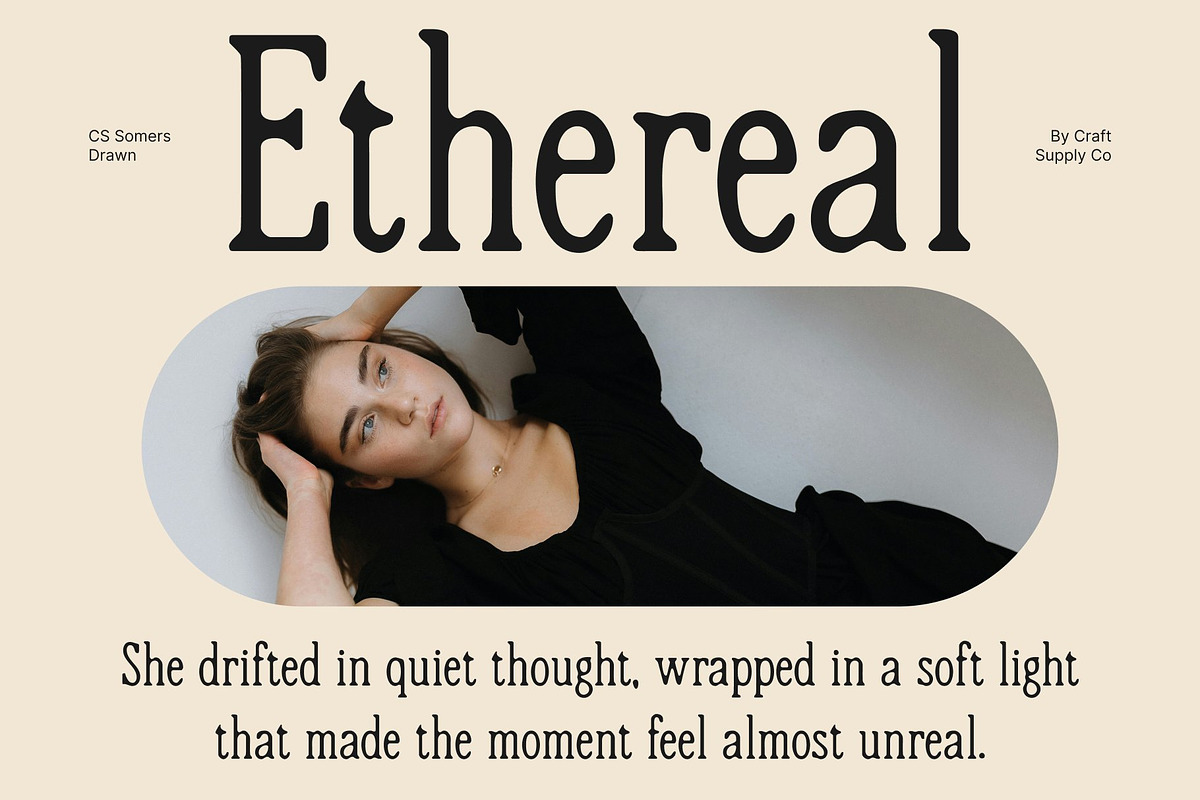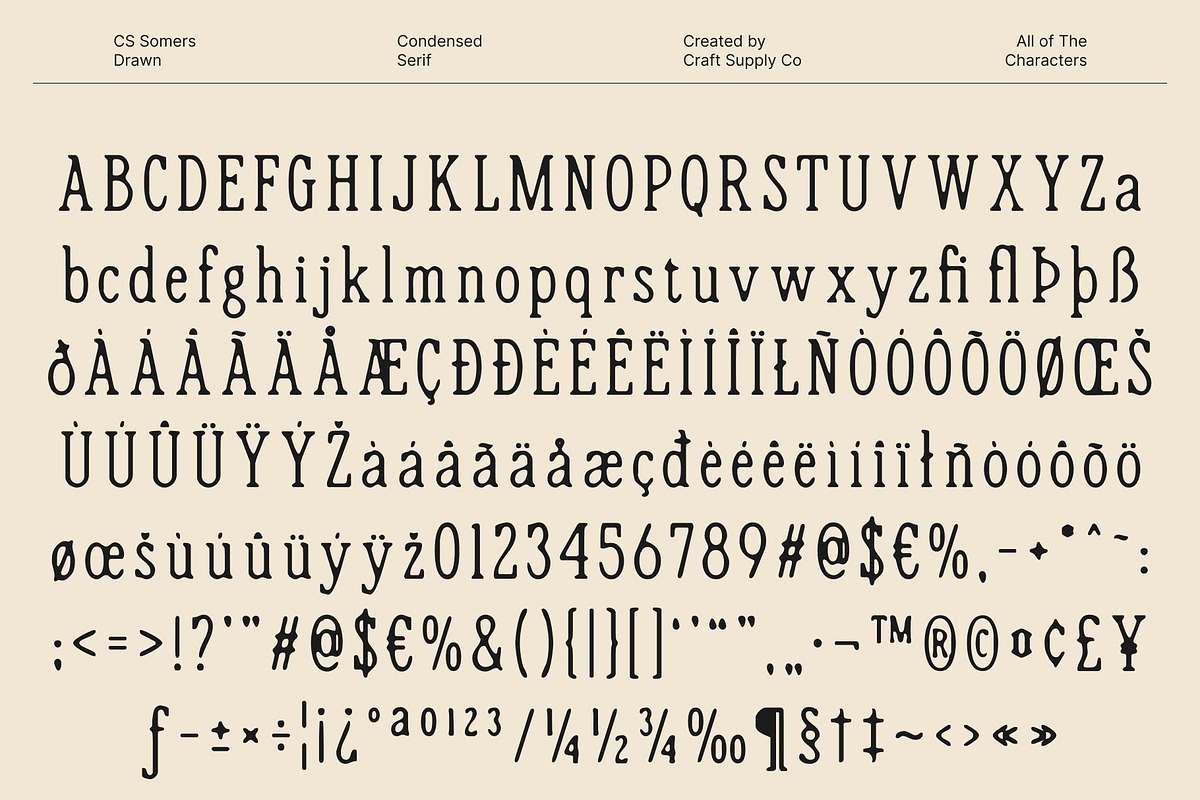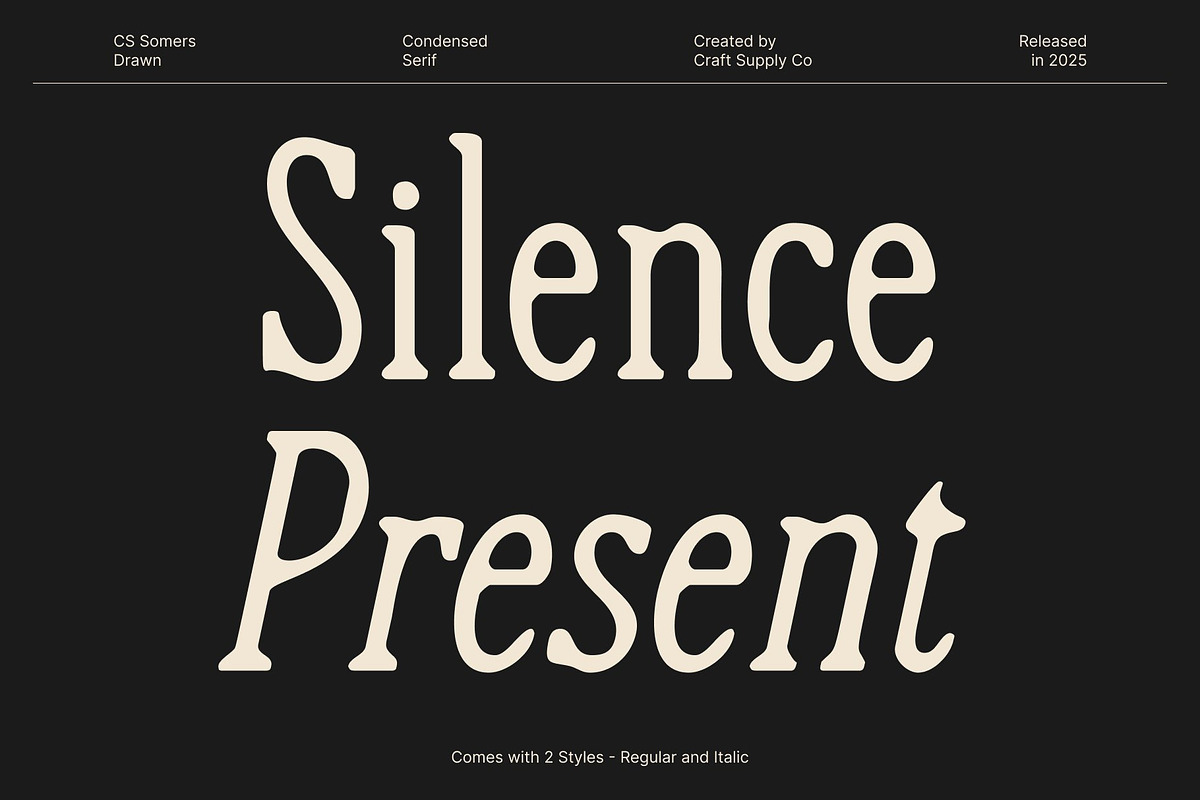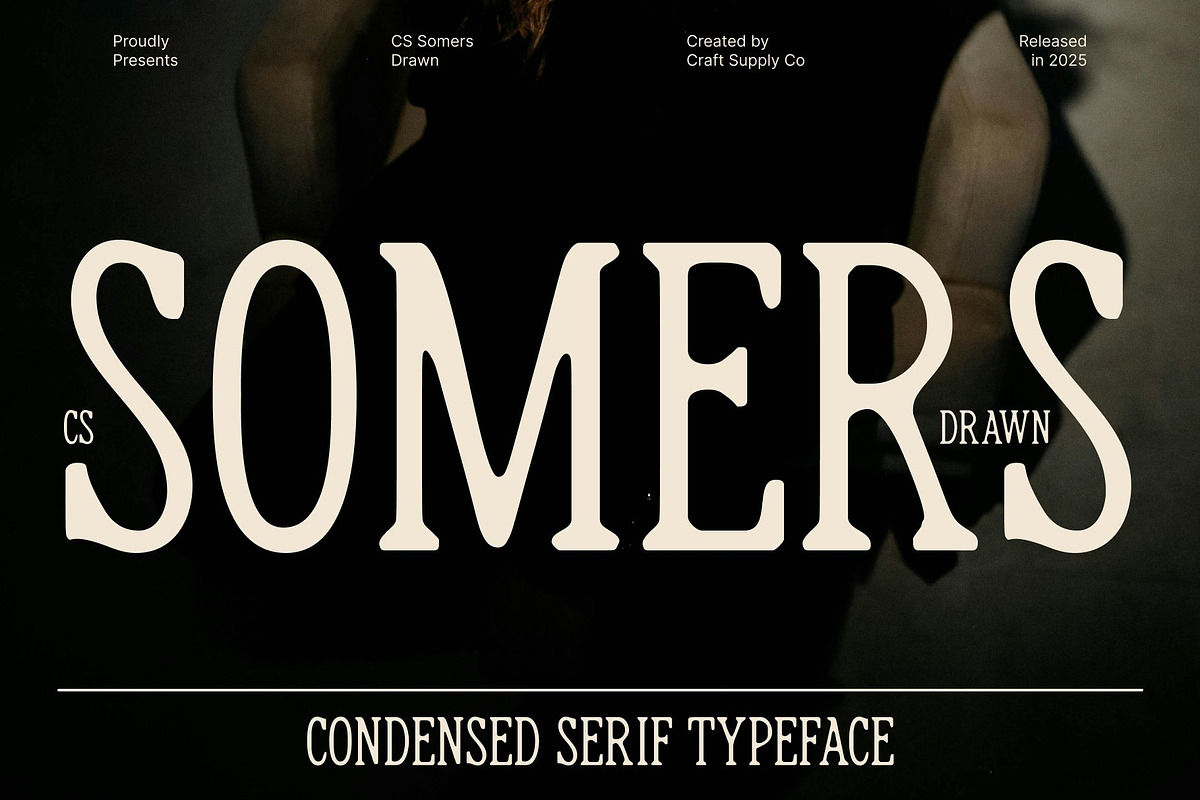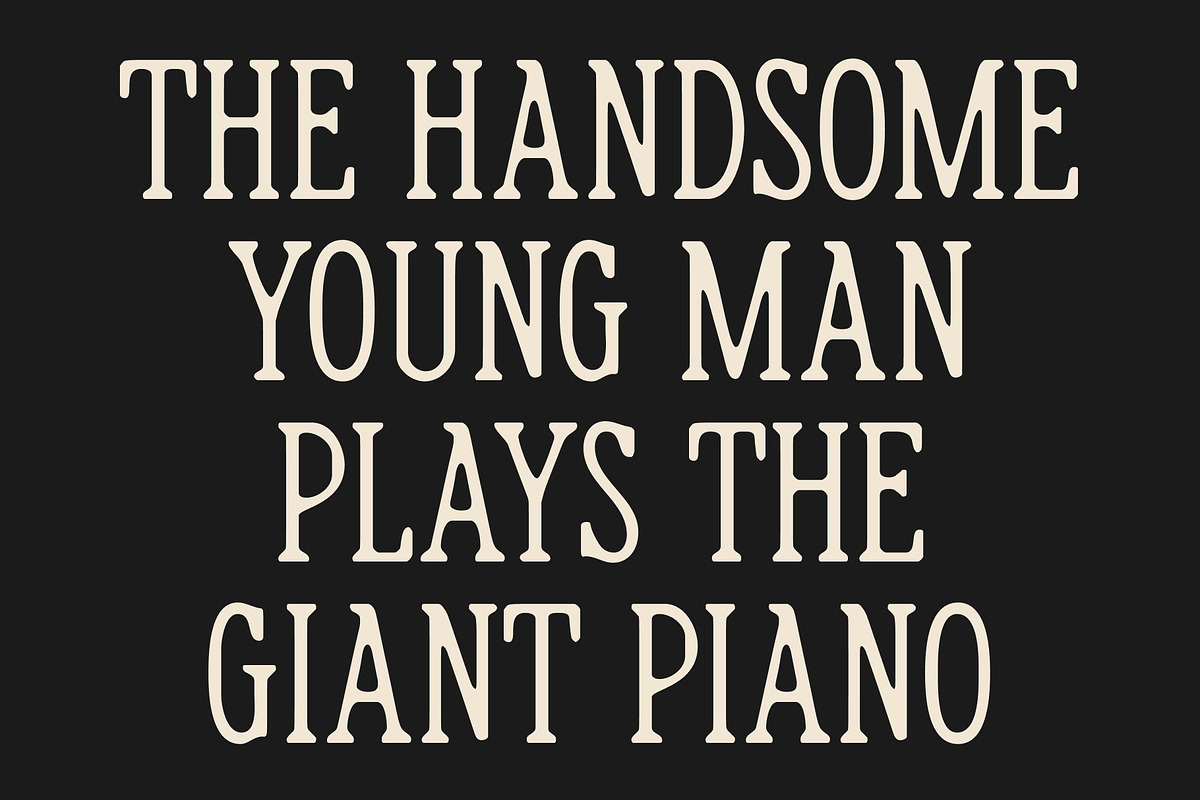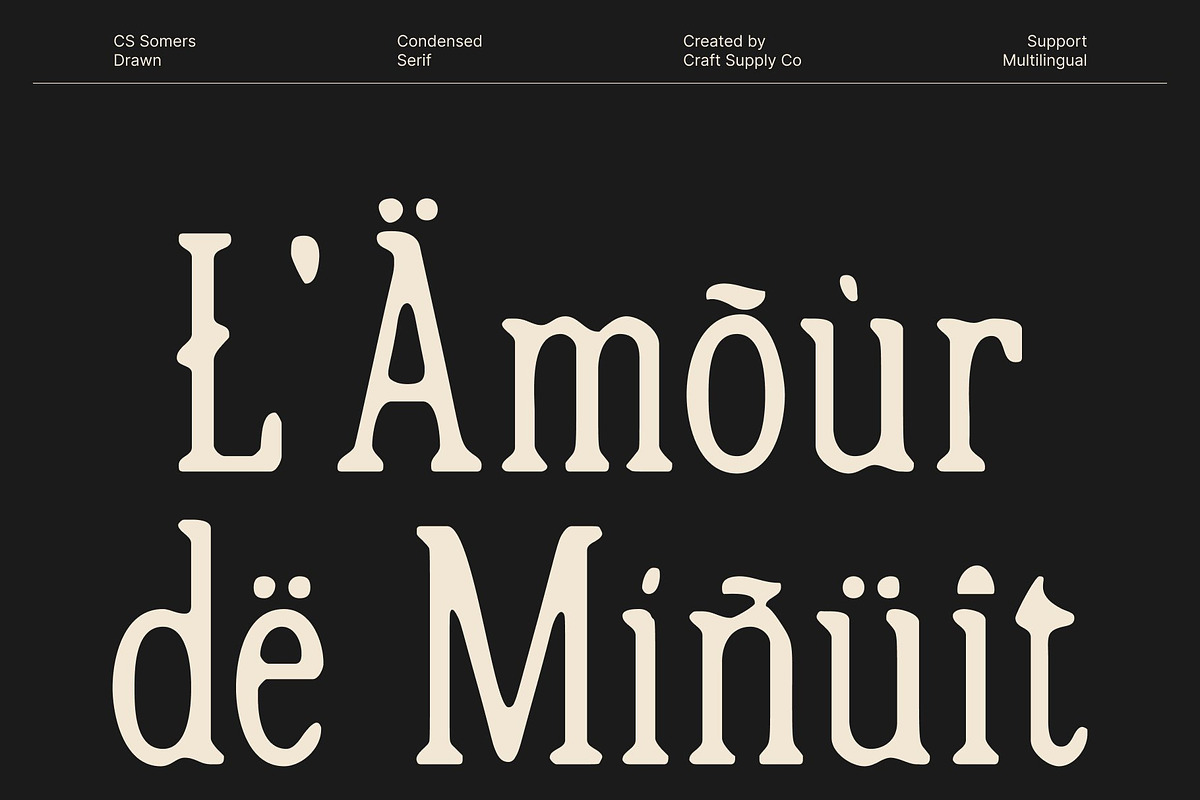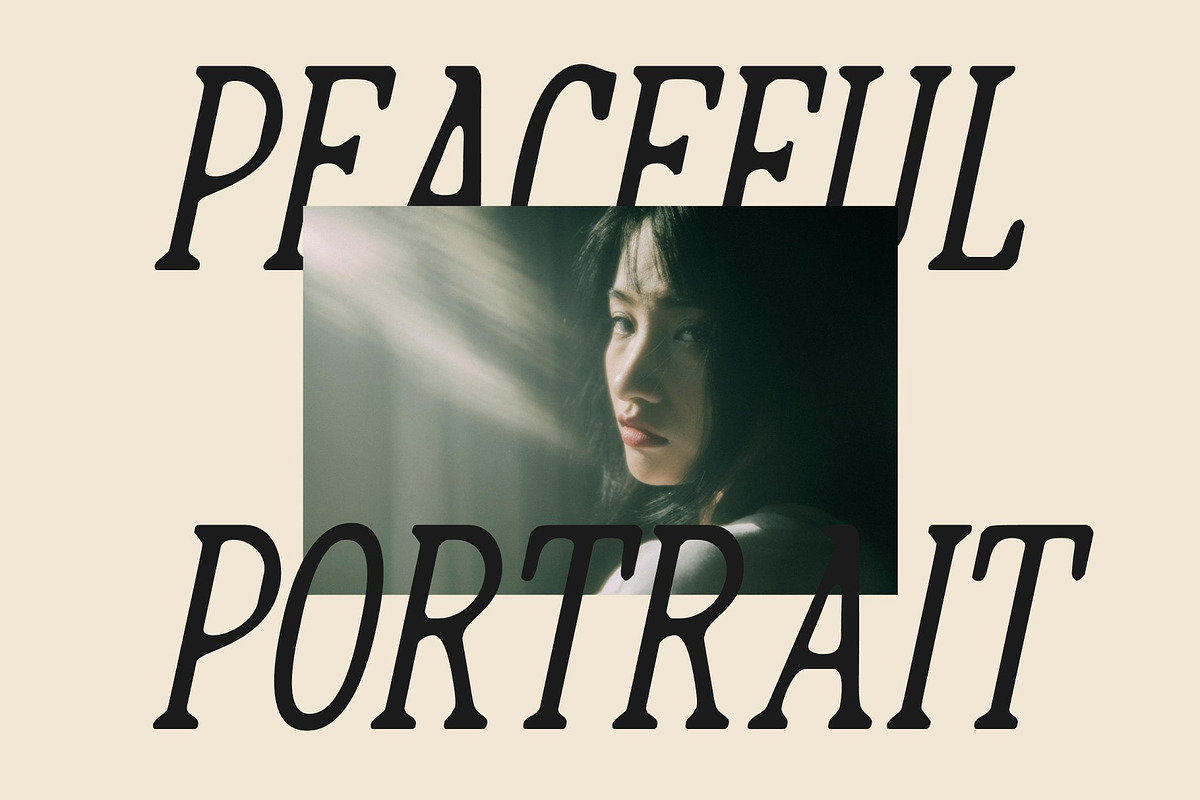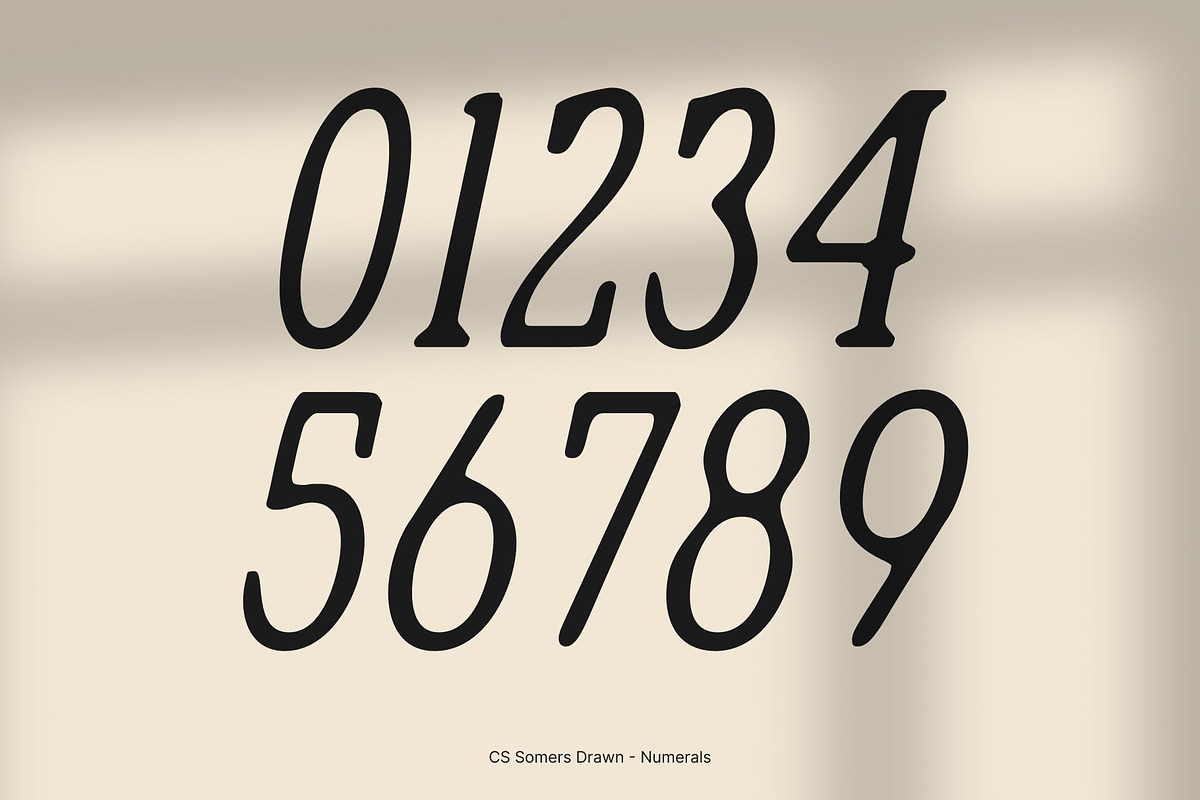
CS Somers Drawn
CS Somers Drawn – Contemporary Refinement with Handcrafted Soul
Condensed Proportions with Long, Slim Serifs This is a condensed modern serif font defined by long, slim serifs and carefully balanced proportions. Its narrow structure creates a strong vertical rhythm, allowing text to feel poised, confident, and visually efficient. The slender serifs add precision and finesse, enhancing the font’s refined appearance while maintaining clarity at display sizes.
Graceful Contemporary Shape The letterforms of this font are shaped with a graceful contemporary sensibility. Smooth curves, clean stroke transitions, and well-controlled contrast give the font a polished and modern presence. Its design feels current yet timeless, making it suitable for premium visual identities that require subtle confidence rather than overt decoration.
Drawn Handmade Texture for Artistic Personality A subtle drawn handmade texture enriches with personality and warmth. Organic imperfections and natural line variations introduce a human touch that softens the precision of its serif structure. This handcrafted detail adds depth and visual interest, allowing the font to feel expressive and artistic while retaining its high-end character. The result is typography that feels crafted, intentional, and visually engaging.
Ideal for Luxury Branding and Editorial Design This font is perfectly suited for luxury branding, posters, editorials, fashion layouts, and refined promotional materials. Its combination of condensed elegance, contemporary form, and handmade texture allows it to adapt across print and digital applications with ease.